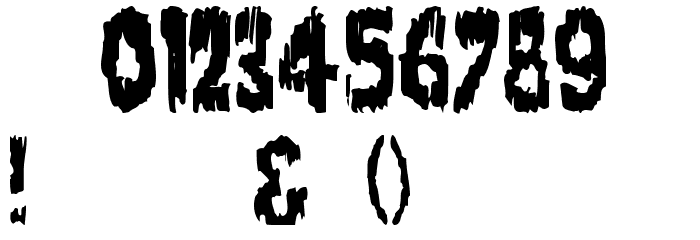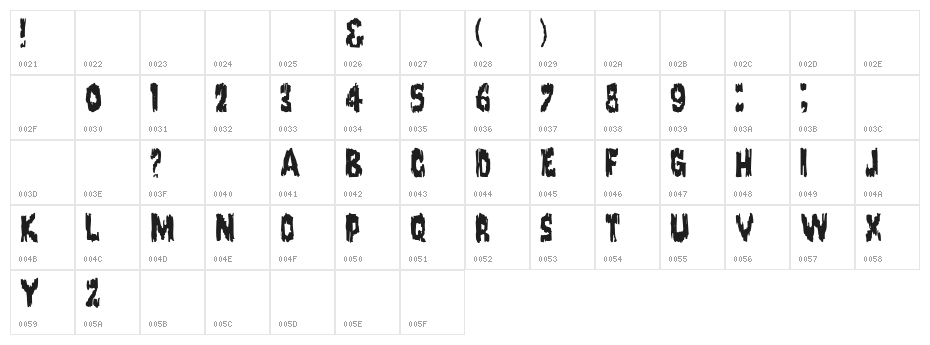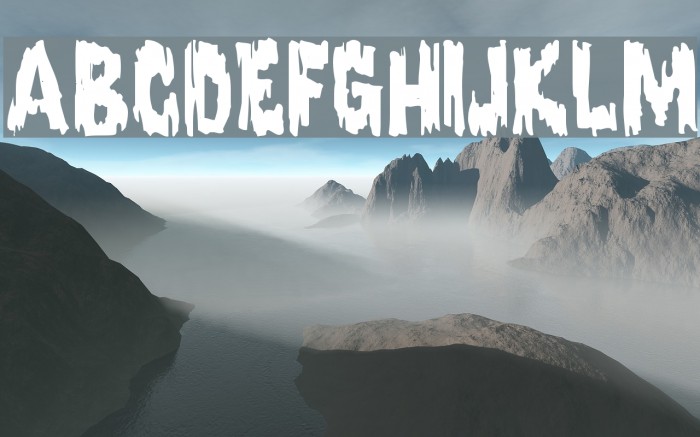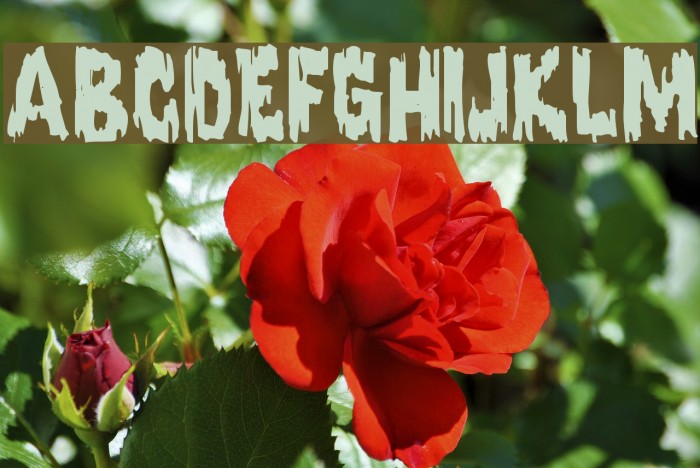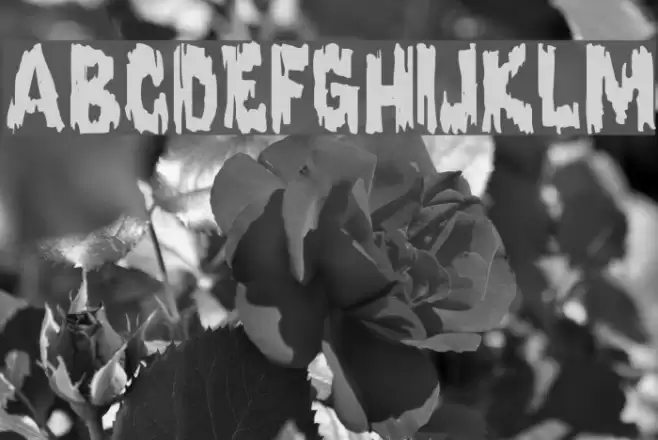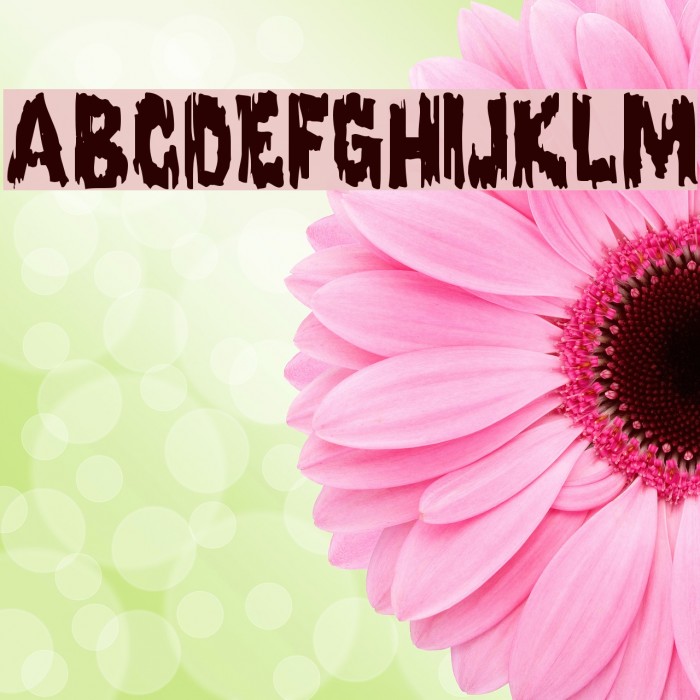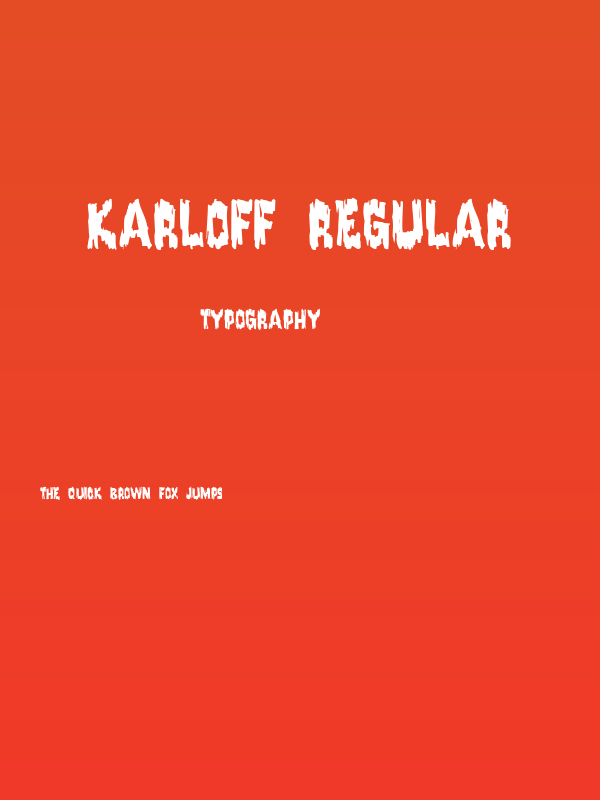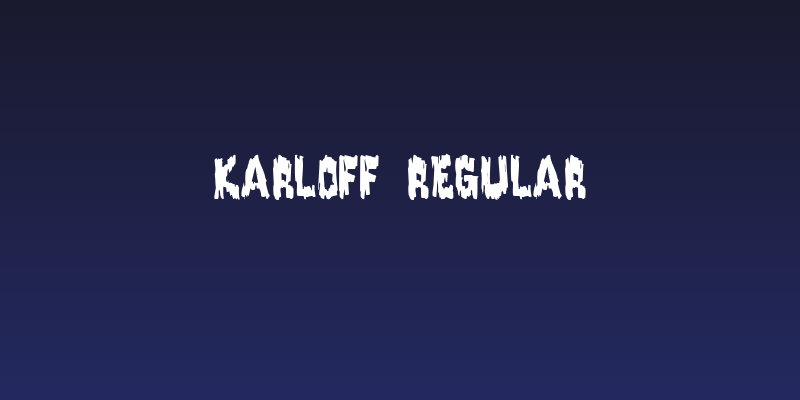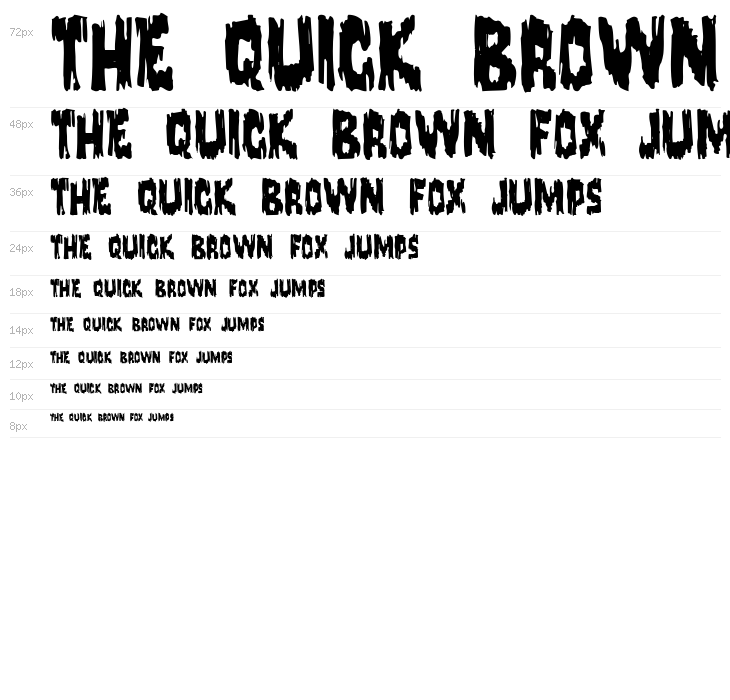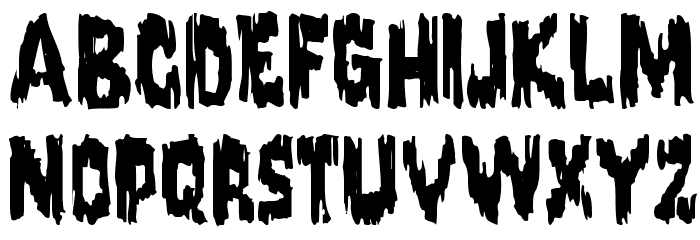
Karloff Regular Font
Karloff Regular Description
This font features a bold and dramatic style with a distressed, textured appearance reminiscent of horror or thriller themes. The characters are jagged and uneven, giving them a hand-drawn, organic feel. The uppercase and lowercase letters maintain a consistent style, with the uppercase being slightly larger and more pronounced. Numbers and special characters follow the same rugged design, making them stand out. This font is perfect for creating an eerie or unsettling atmosphere in design projects.
Proposed ProjectsIdeal for Halloween posters, horror movie titles, spooky event invitations, and themed merchandise.